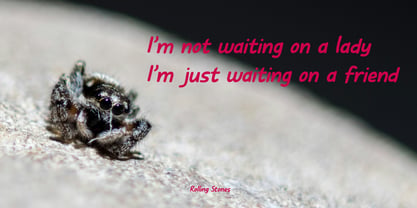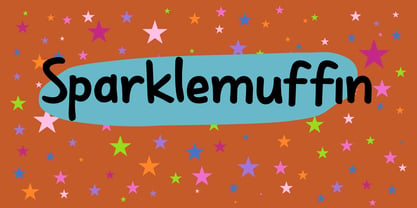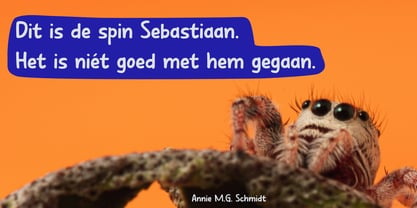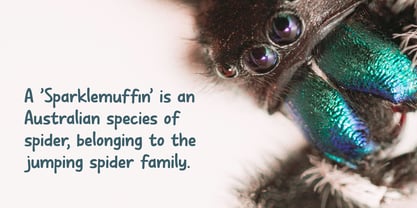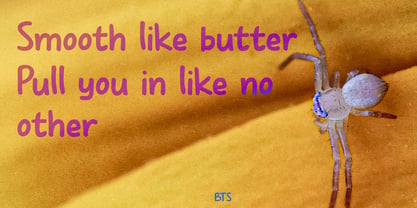
Sparklemuffin Pro
by Hanoded
The Sparklemuffin Pro Font Family was designed by David Kerkhoff and published by Hanoded. Sparklemuffin Pro contains 2 styles and family package options. More about this family
A ‘Sparklemuffin’ is an Australian species of spider, belonging to the jumping spider family. I don’t know how I found out about this bizarrely named spider, but I decided to name this font after it!
Sparklemuffin is a reincarnation of a really old font called Shesek. I made it back in the day and the original Shesek font only had one upper case letter set for both the upper and lower case. I thought it deserved some renewed attention and created Sparklemuffin.
Sparklemuffin comes with extensive language support, a really nice set of lower case letters, improved upper case letters and a good assortment of non-letter glyphs.
Hanoded is run by Dutchman David Kerkhoff. His fonts are a mishmash of styles, as he just creates whatever pops into his head. You will find a lot of brush fonts in his collection, as his favourite tools are brushes and Chinese ink, with cartoon style fonts and script fonts complementing his repertoire. Aside from making fonts, David occasionally guides tours in far-flung places, renovates his '30's house and tries reasoning with his wife and (teenage) kids. Not an easy task!